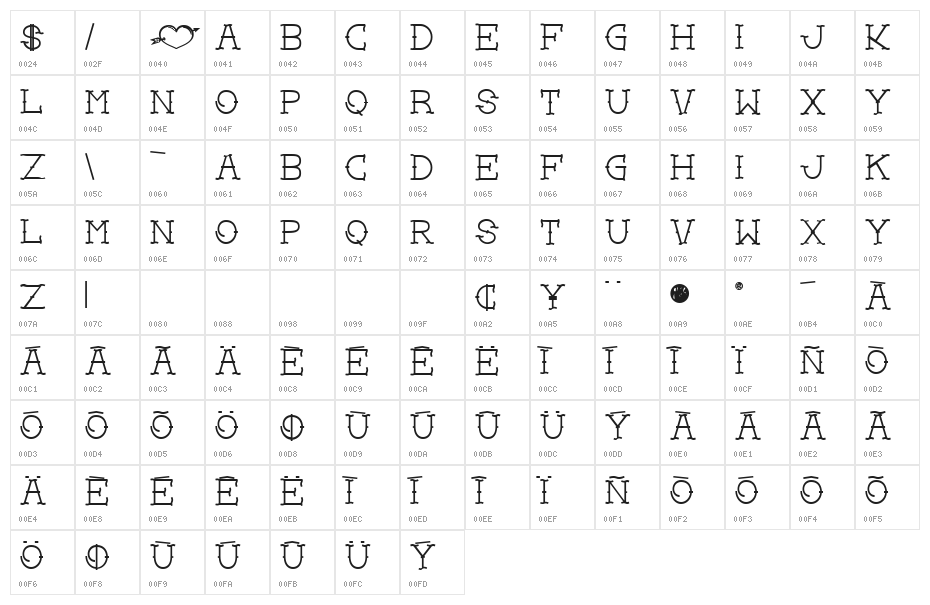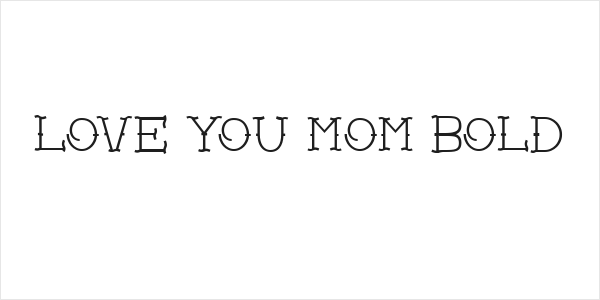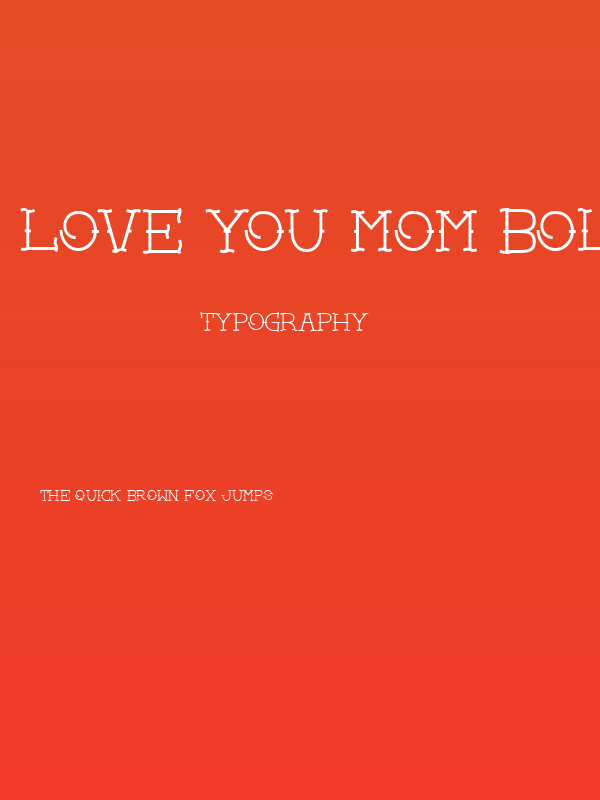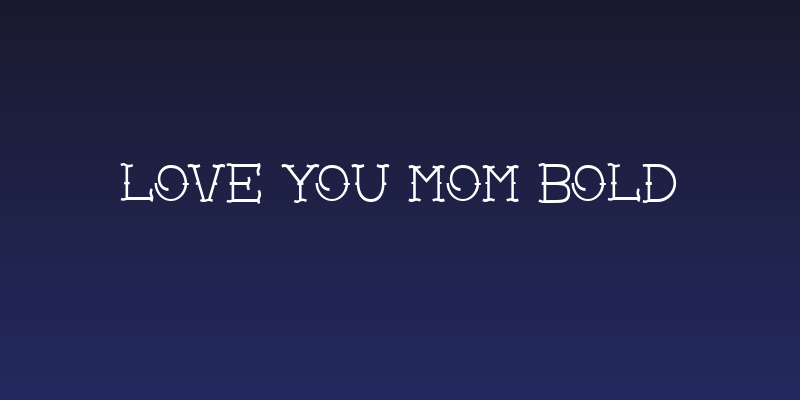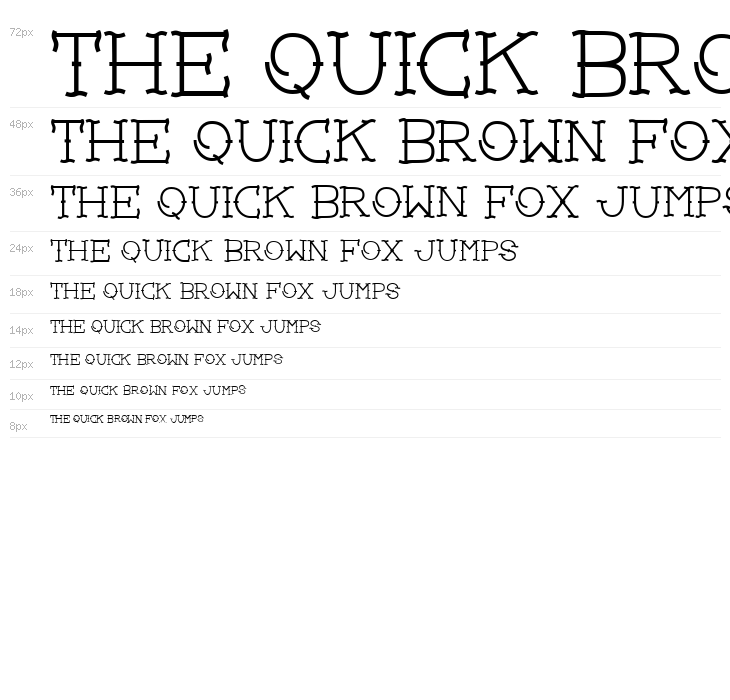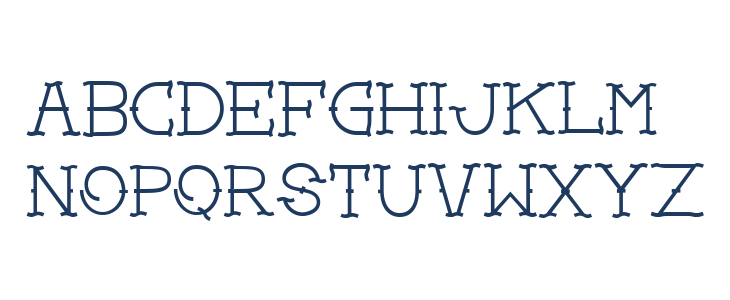
Love you mom Bold Font
Love you mom Bold Description
This font features a unique decorative style with elements that resemble stitching or sewing patterns. Each character is designed with small, consistent embellishments that add a handcrafted feel. The uppercase letters are bold and prominent, making them suitable for attention-grabbing designs. The overall look is playful yet structured, with a clear emphasis on creativity and artistic flair. The special characters maintain the same decorative theme, ensuring consistency across all glyphs. This font is ideal for projects that require a touch of whimsy and individuality.
| Proposed Projects | Ideal for greeting cards, craft projects, DIY invitations, and creative branding materials. |